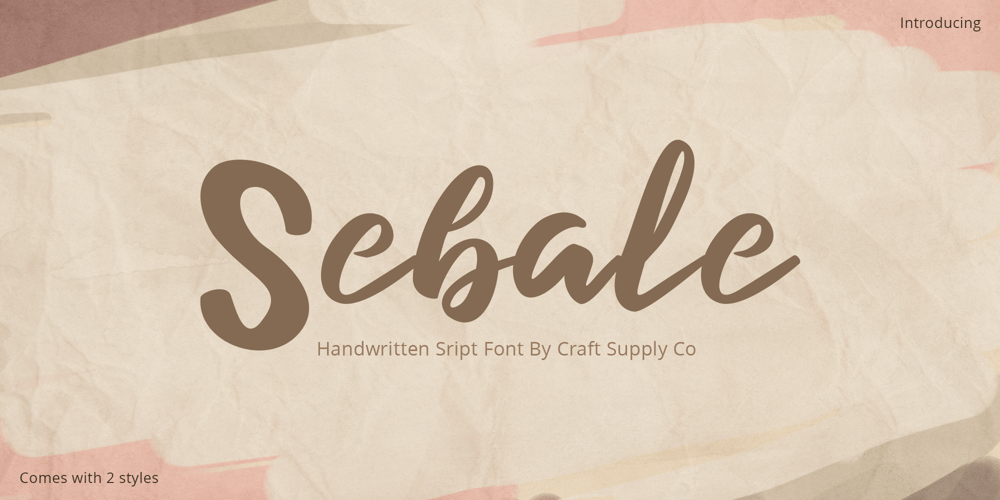
Sebale Font Family was designed by Trio Nazzar Saputra, Wahyu Hadi Yuana and published by Craft Supply Co. Sebale contains 2 styles and family package options. Introducing Sebale – Handwritten ScriptA Playful Handwritten ScriptSebale, a font brimming with delightful whimsy, injects a playful touch into your designs.Charming WhimsySebale’s design is not only handwritten but also exudes charming whimsy, making it an ideal choice for a variety of creative projects.Versatile for Creative EndeavorsMoving beyond its charm, Sebale’s versatility shines through, allowing it to seamlessly enhance a wide range of design projects. From greeting cards to branding, it offers a wide array of possibilities.Engaging and MemorableSebale ensures that your content is not only engaging but also incredibly memorable, leaving a lasting and delightful impression.In ConclusionTo sum it up, Sebale – Handwritten Script is the font that effortlessly infuses a delightful playfulness into your designs. Its versatility makes it suitable for a broad range of creative endeavors, ensuring accessibility to a diverse readership. With Sebale, your projects will undoubtedly stand out.